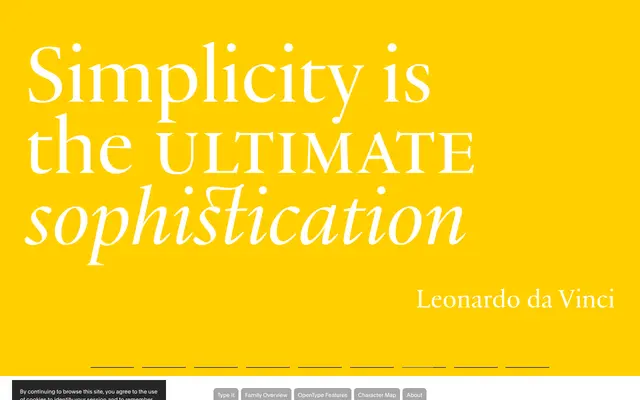
Practice
Optimo · François Rappo
François Rappo's sharp Renaissance-inspired serif with text and display cuts, plus Pan companions for cross-script work.
A serif by François Rappo whose architecture revisits the elegance of Renaissance typography while pushing it into a crisp digital register. Practice is characterised by elegant proportions and sharp, precisely cut serifs, and the optical balance of the text rhythm reads cleanly on paper and on screen. Text and Display cuts give the family the range to move between long-form editorial and headline work, and Pan variants handle cross-script identity systems.
Optimo describes Practice as a serif typeface whose architecture revisits Renaissance typography while introducing an innovative calligraphic drawing with carefully orchestrated sharp serifs.